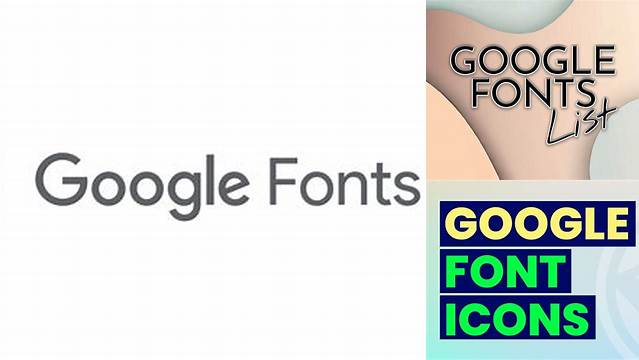
Deciphering Google Fonts Icons
Hey guys, let's dive into the world of web design, specifically focusing on an often-overlooked but incredibly important aspect: icons! We're going to explore https://fonts.googleapis.com/icon, a crucial component of Google Fonts. It's where a vast library of vector icons resides, ready to be seamlessly integrated into your websites and applications. Think of it as a treasure trove of visual elements that can significantly enhance user experience and the overall aesthetics of your projects. This article is designed to unpack everything you need to know, from the basics of accessing and implementing these icons to advanced techniques for customization and optimization. We'll explore the history, the benefits, and the best practices for leveraging this resource to its fullest potential. So, buckle up and get ready for an exciting journey through the world of web iconography!
1. Unveiling the Power of Icons: Why https://fonts.googleapis.com/icon Matters
Alright folks, let's get down to brass tacks: why are icons so darn important, and why should you care about https://fonts.googleapis.com/icon? Well, icons, those tiny visual representations, play a massive role in how users interact with your website or app. They're the silent communicators, the visual cues that guide users, clarify information, and inject a dose of personality into your design. Without them, your website can feel clunky, confusing, and frankly, a little bit boring. They're the secret sauce that makes your site not only functional but also delightful to use. https://fonts.googleapis.com/icon is a key player here because it provides a centralized and easy-to-use library of high-quality icons that can be easily integrated into your projects. This means you don't have to spend hours searching for the perfect icon or, worse, creating them from scratch. The availability of these icons through https://fonts.googleapis.com/icon streamlines the design process, allowing you to focus on the bigger picture: creating a user-friendly and visually appealing experience.
Let's consider the advantages of using icons. Icons provide instant recognition. They bridge language barriers. They improve usability. Imagine a navigation bar without icons: a wall of text. Now, picture those same words, but with corresponding icons. Immediately, the user understands the function and location of the item. Icons make complex information easier to digest. They are visually interesting and can also add visual interest to your site and enhance its overall aesthetic appeal. They contribute significantly to the overall visual hierarchy of the website. They improve the perception of the website as well as it is modern and professional. They are highly scalable and performant.
Using https://fonts.googleapis.com/icon offers several specific advantages. The icons are vector-based, meaning they scale seamlessly without any loss of quality. The library is regularly updated with new icons, ensuring you have access to the latest design trends. Integration is straightforward, usually requiring a simple line of code. You can easily customize the icons' size, color, and style to perfectly match your branding. The icons are optimized for performance, which can speed up your website's loading times and make your website more user-friendly. All these factors contribute to create a seamless, engaging, and efficient user experience.
2. Google Fonts Icons: The Gateway to a Visual Language
So, what exactly are Google Fonts icons, and why should they be your go-to resource? Google Fonts icons, accessed through https://fonts.googleapis.com/icon, offer a comprehensive and ever-expanding collection of vector icons, freely available for use in your projects. This means you can incorporate these visually rich elements into your website or application without worrying about licensing fees or attribution requirements. This open-source approach makes them incredibly accessible, empowering developers and designers of all skill levels to enhance their projects with professional-grade iconography. Think of them as a ready-made visual language, allowing you to instantly communicate concepts and ideas through universally recognizable symbols.
This extensive library is curated by Google, ensuring a consistent style and high quality across all icons. This allows you to mix and match icons from various categories, guaranteeing visual harmony. https://fonts.googleapis.com/icon offers a wide range of icons. There are icons for everything from basic actions, such as adding and deleting, to icons representing entire categories, like social media or file types. This broad selection means you can likely find an icon for virtually any purpose, saving you time and effort in the design process. The consistent style of the icons ensures that your website maintains a cohesive and professional appearance. This consistency extends to their technical structure, ensuring a smooth and predictable integration process.
Moreover, https://fonts.googleapis.com/icon integrates seamlessly with the rest of the Google Fonts ecosystem. This integration means you can easily pair your website's typography with matching icons, further enhancing the visual consistency of your design. This harmony contributes to a more polished and professional look. The icons are also optimized for performance, ensuring they don't significantly impact your website's loading times. They are served via a content delivery network (CDN), which delivers the files quickly to users all over the world. This is important for optimizing the user experience, as slow loading times can lead to frustration and even users leaving your site altogether. They support various web fonts formats, making them compatible with all modern browsers.
3. Accessing and Implementing Icons from https://fonts.googleapis.com/icon: A Step-by-Step Guide
Alright friends, let's get down to the nitty-gritty: how do you actually get these awesome icons onto your website? Integrating icons from https://fonts.googleapis.com/icon is surprisingly simple, so don't worry if you're new to this. I'll walk you through the process step-by-step, from finding the perfect icon to implementing it in your HTML. This guide will help you quickly integrate these icons into your project. It is a straightforward process, which requires only a few steps. This ease of use makes them an accessible option for both beginners and experienced web developers.
First, you need to decide how to implement the icons. The recommended way is to use the provided CSS file. The simplest way to access icons is to include the Google Fonts stylesheet in the <head>
section of your HTML document. This stylesheet contains all the necessary information to display the icons correctly. You can find the code snippet on the Google Fonts website. For example:
This line of code tells your browser to load the Material Icons font. You can choose any other suitable icons on Google Fonts, like Font Awesome, or other similar libraries. This way you are importing this font and making it available to your project. Next, you'll need to find the icons you want to use. Google Fonts has a user-friendly interface where you can browse the available icons, search for specific terms, and preview them in various sizes and colors. For instance, if you want a search icon, search for 'search.' You'll see a visual representation of each icon along with its unique name.
Once you've found your icon, you can insert it into your HTML. The icons are referenced using their specific class names. The <i>
tag is commonly used to display these icons. The class name usually corresponds to the icon's name. For example, if you selected the 'search' icon, the HTML code might look like this:
Make sure you replace